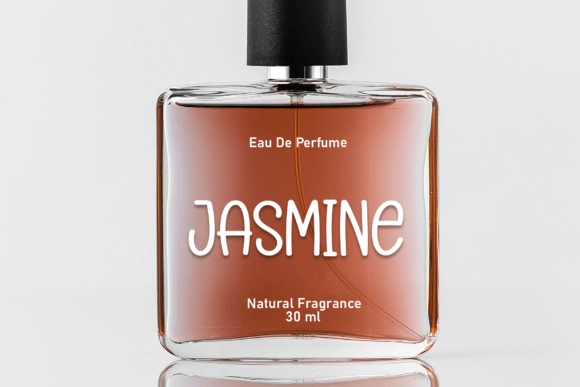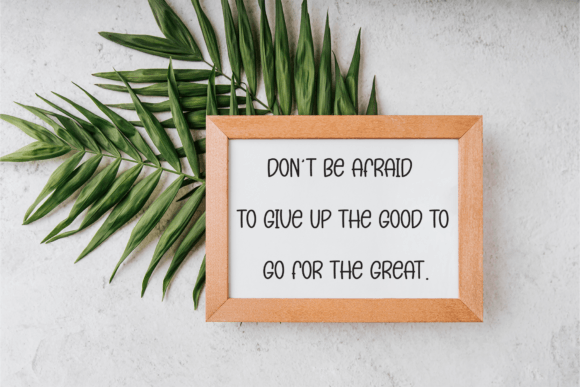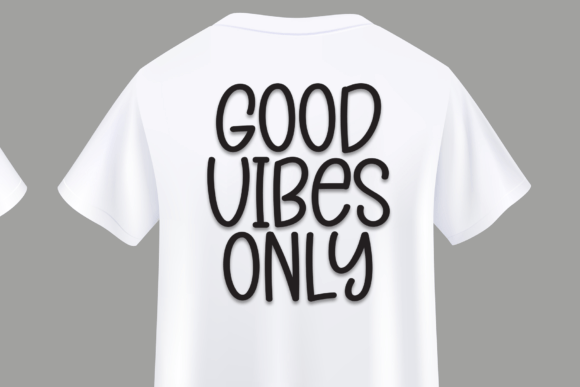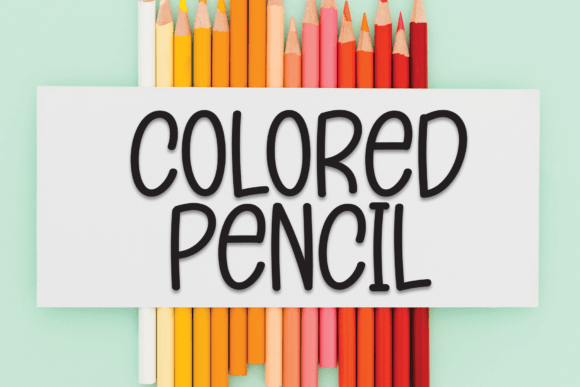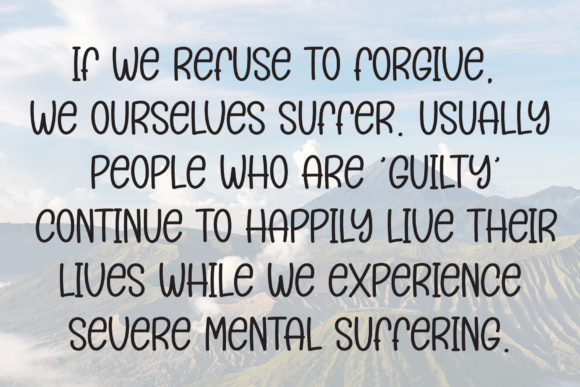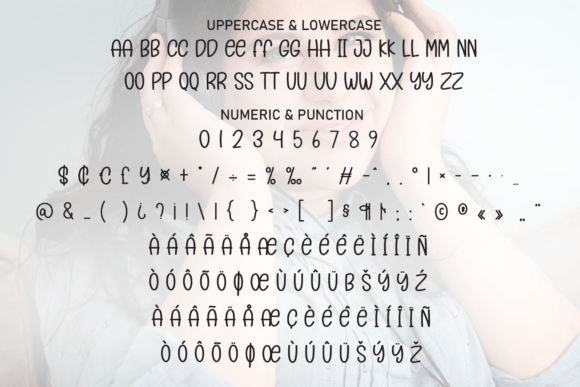
Have you ever been working on a creative project and felt like something was missing – a dash of personality, a pinch of charm? You know the feeling, when your design just needs a little extra oomph to bring it to life. For me, that moment came when I stumbled upon the Chubby Eastern Font. Its playful curves and lines seemed to whisper “fun” and “whimsy,” beckoning me to let my creativity run wild.
This handcrafted display font is designed to add a touch of warmth and amiability to any design. Whether you’re crafting heartfelt wedding invitations, personalized cards, or simply looking to add some personality to your social media graphics, Chubby Eastern Font is the perfect companion. Its unique charm is sure to delight, making it a valuable addition to any designer’s toolkit.
Key Features of Chubby Eastern Font
- Font Family: Chubby Eastern Font is a custom-designed font, making it unique to its creator.
- Character Count: Chubby Eastern Font includes a wide range of characters, including uppercase and lowercase letters, numbers, and various symbols.
- Font Size: Chubby Eastern Font is designed to be used at various sizes, from 8-point to 72-point, making it suitable for both body text and headings.
- Resolution: Chubby Eastern Font is designed to be legible at resolutions as low as 72 dpi, making it suitable for digital use, including web and mobile applications.
- Unique Characteristics: Chubby Eastern Font features a distinctive, rounded design with a high x-height, making it highly readable in both print and digital formats.
Designer Review: Chubby Eastern Font
Overall, the Chubby Eastern Font is a fun and quirky addition to any design project. I appreciate the effort put into creating a unique and playful character set that is sure to grab attention.
- ✨ Unique character design: The font’s rounded, chubby appearance is instantly recognizable and memorable.
- ✨ Playful feel: The font’s informal, hand-drawn quality gives it a lighthearted and approachable vibe.
- ✨ Versatility: Chubby Eastern Font can be used for a wide range of applications, from children’s books to social media graphics.
- ⚠️ Limited legibility: The font’s rounded edges and chunky appearance can make it difficult to read at smaller sizes or in complex compositions.
- ⚠️ Limited font sizes: The font’s unique design may not scale well to larger sizes, losing its impact and charm.
While Chubby Eastern Font has its limitations, I believe it’s a great choice for designers looking to add some personality and whimsy to their projects. With careful use and consideration, this font can be a valuable addition to any design toolkit.
The Chubby Eastern Font is ideal for creating a playful and whimsical atmosphere in your designs.
Use it for:
– Menu boards and signage
– Party invitations and decorations
– Children’s books and educational materials
Remember to experiment with different font sizes and colors to get the most out of the Chubby Eastern Font.